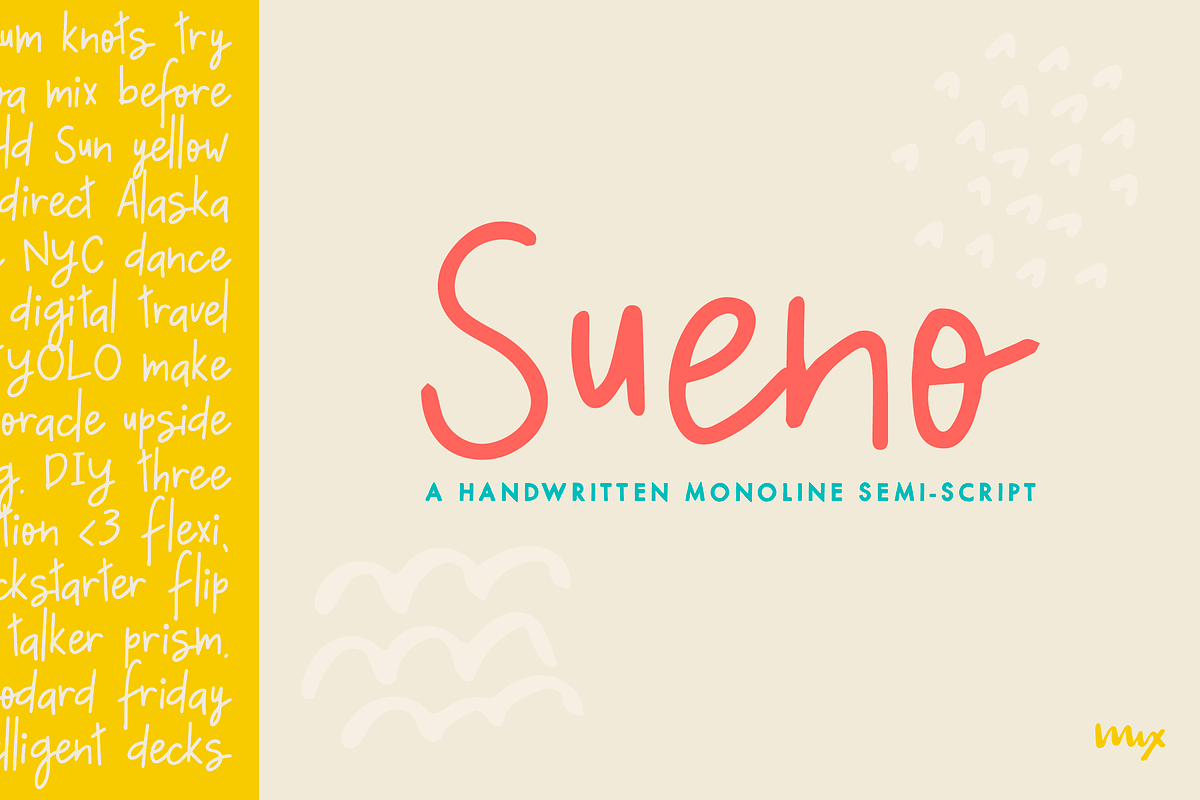
Sueno - A Monoline Semi-script Free Download
Sueno - A Monoline Semi-script Free Download is a versatile font designed by Mix Fonts. This typeface combines the simplicity of monoline strokes with semi-script characteristics, making it suitable for various design projects such as logo design, print media, souvenirs, merchandise, and website imagery. Its clean and modern aesthetic adds a touch of elegance to any creative endeavor. You can download Sueno - A Monoline Semi-script Free Download for personal use to explore its features. For commercial applications, please ensure you purchase the appropriate license to comply with usage rights